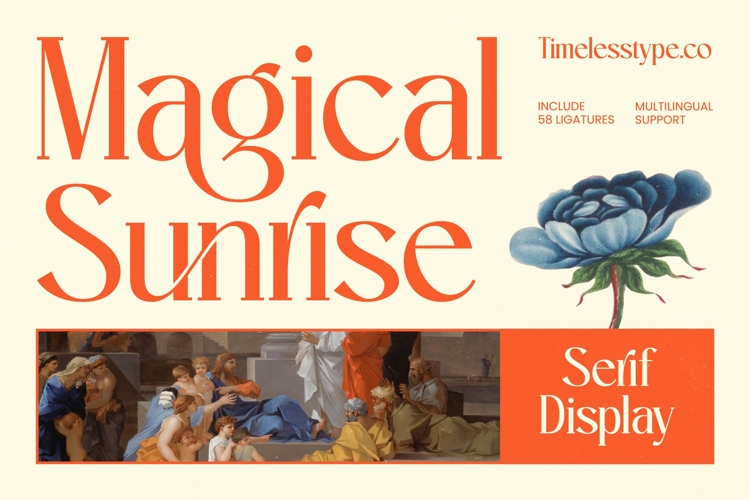
Magical Sunrise - Serif Display Font
Elevate your design aesthetic with the timeless elegance of Magical Sunrise - Serif Display Font, a typeface that masterfully blends classical sophistication with a modern, artistic flair. This high-contrast display serif captures attention through its graceful curves and refined proportions, making it a standout choice for designers seeking a balance of tradition and contemporary style. Its fluid lines and polished finish ensure that every word resonates with a sense of luxury and poise.
Unlock unparalleled creative potential through an extensive collection of 58 unique ligatures that provide a custom, bespoke feel to any layout. The Magical Sunrise - Serif Display Font is meticulously crafted to offer fluid motion and seamless transitions between characters, allowing for dynamic typography that feels organic yet structured. This versatility enables creators to build distinctive visual identities that leave a lasting impression on their audience.
Expand your brand’s reach across borders with a typeface built for the modern global landscape and international appeal. With its extensive multilingual support, Magical Sunrise - Serif Display Font adapts seamlessly across global markets, making it incredibly versatile for international projects. This functional excellence ensures that your message remains clear and visually cohesive, regardless of the language or region, maintaining brand integrity at every touchpoint.